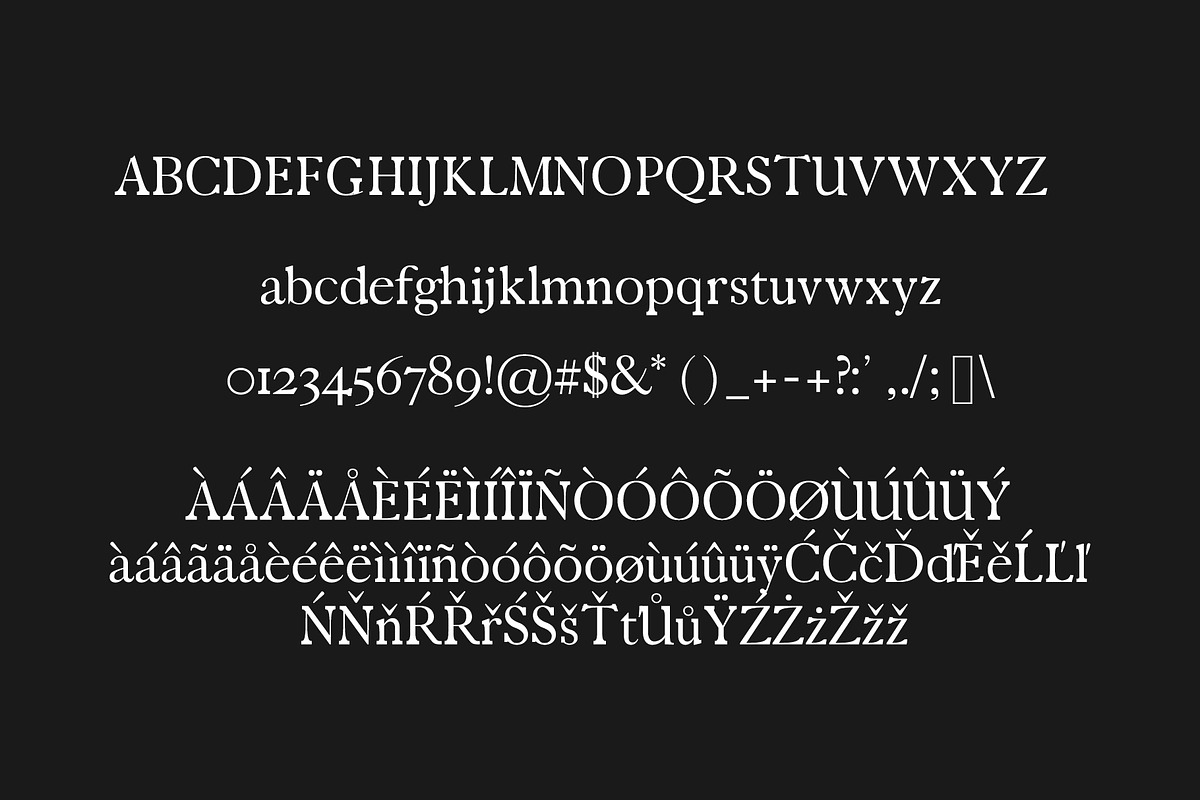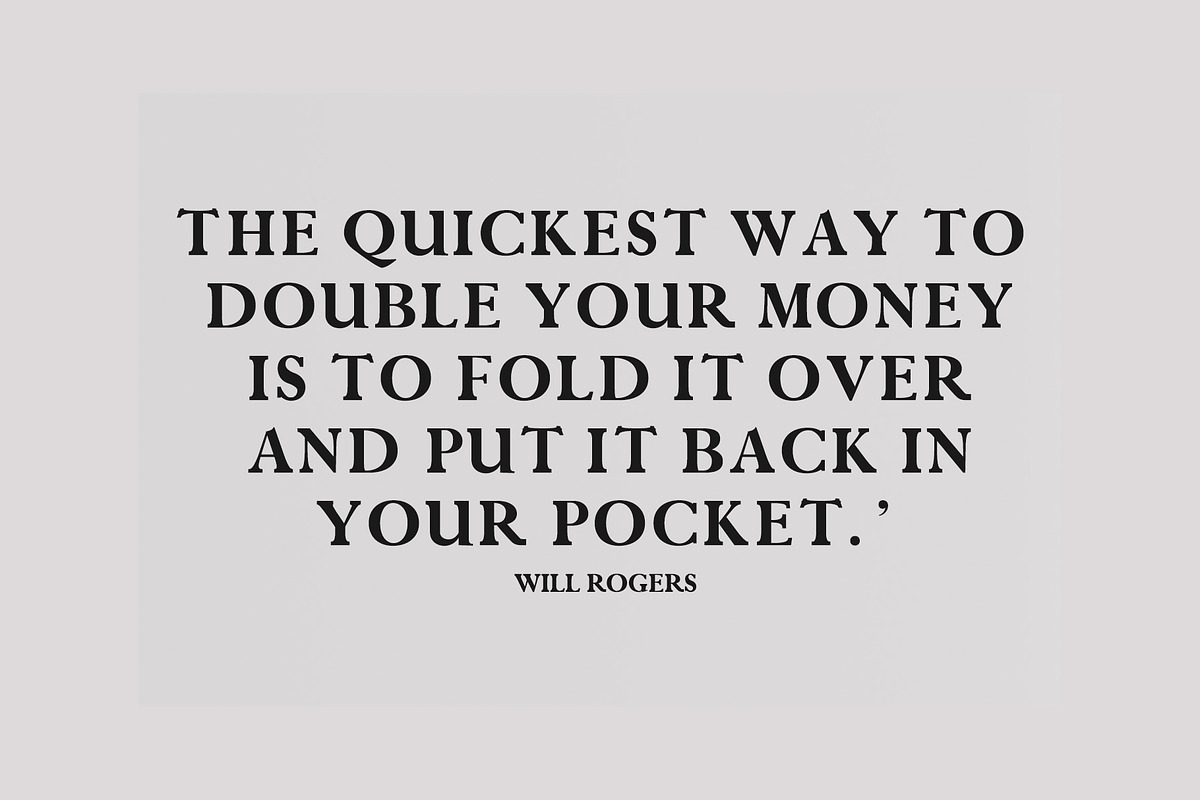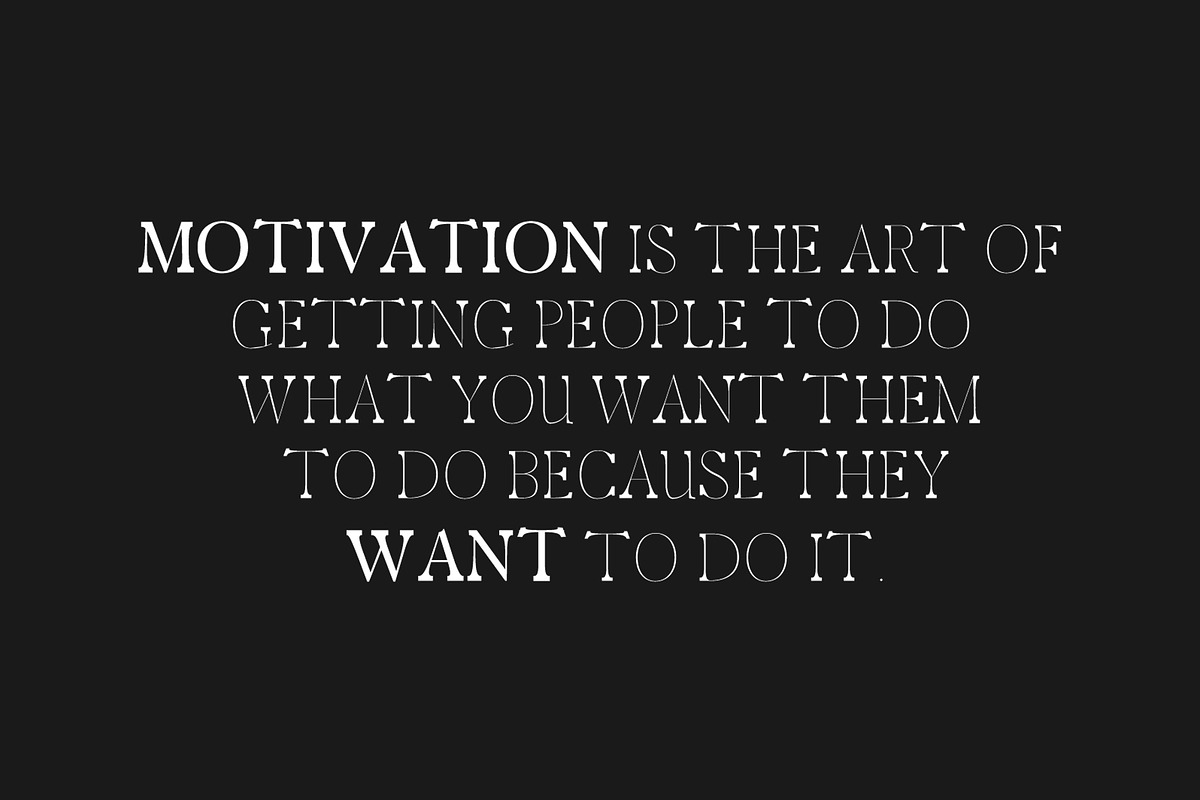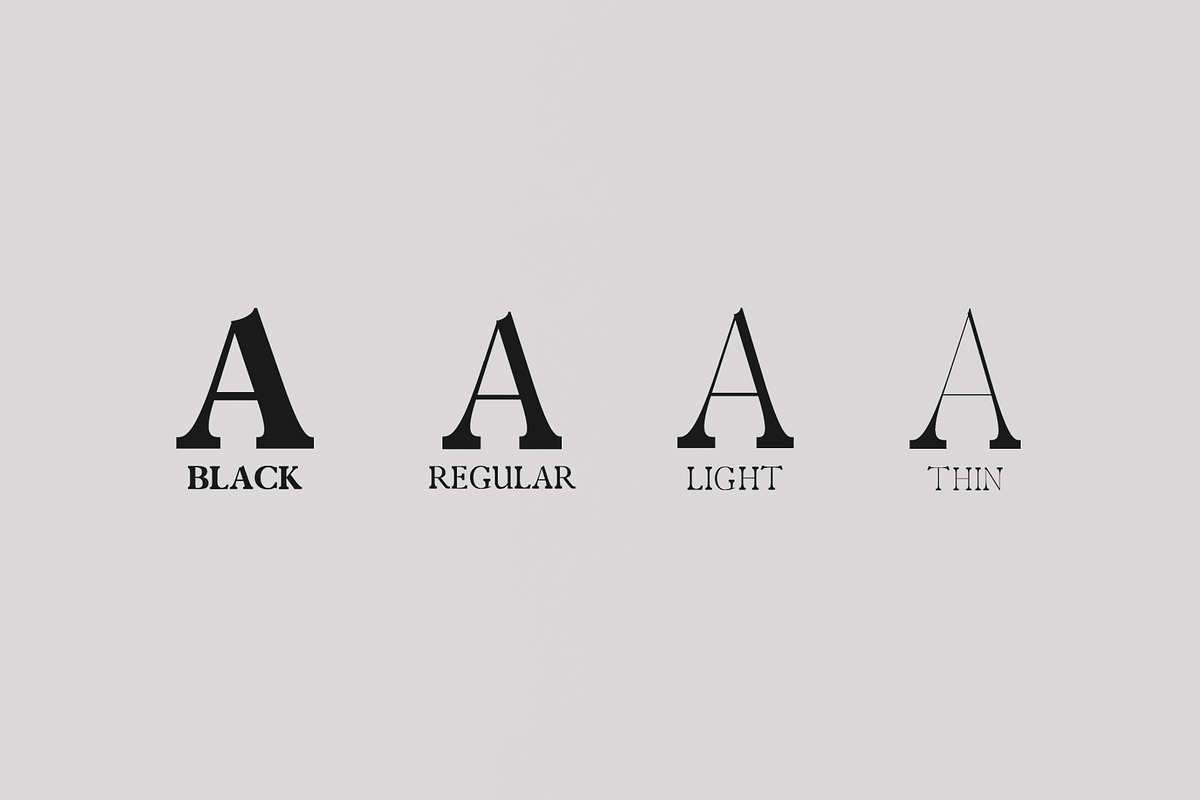
Zack Serif 4 Font Family Pack
Zack Serif 4 Font Family Pack by Creativetacos is a font selected for branding, posters, packaging, typography.
Why Zack Serif 4 Font Family Pack is worth a look
Zack Serif 4 Font Family Pack by Creativetacos fits naturally into Branding, posters, packaging, typography.